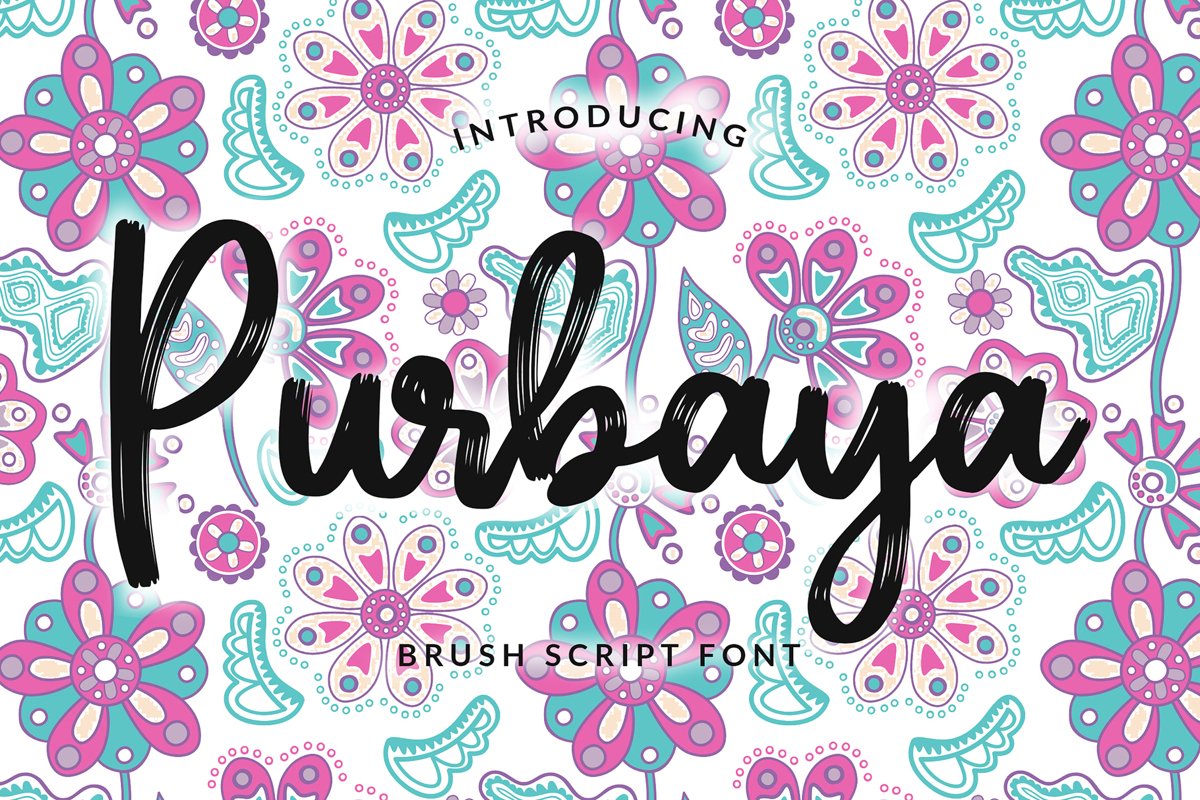
Purbaya Brush Script Typeface
Purbaya
Purbaya Brush Script Typeface is a Brush effect Script font, can make your text appear elegant, luxurious, and modern!
Purbaya Brush Script Typeface is perfect for branding projects, logo, wedding designs, social media posts, advertisements, product packaging, T-shirt design, product designs, label, photography, watermark, invitation, stationery, and any projects.